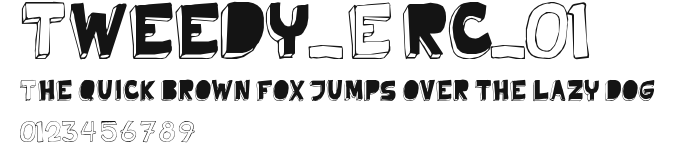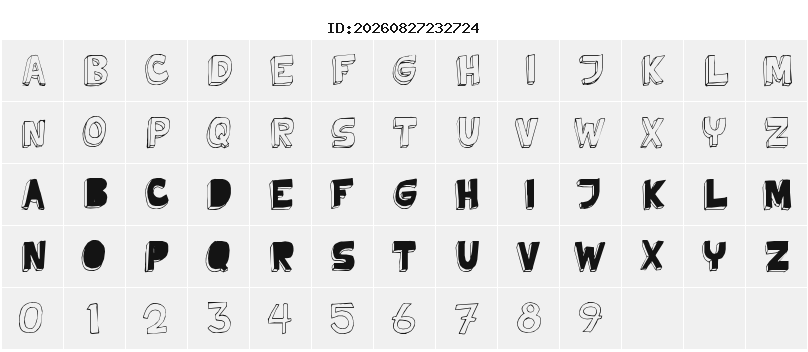
Tweedy_Erc_01 Preview
• Font Name: Tweedy_Erc_01
• Font ID: Tweedy_Erc_01:Version 1.00
• Full Font Name: Tweedy_Erc_01
• Version: Version 1.00 October 21, 2005, initial release
• PostScript Name: Tweedy_Erc_01
• Character Count: 655
About Tweedy_Erc_01.ttf
Tweedy_Erc_01.ttf is a modern, elegant sans-serif font designed for ultimate readability and visual harmony. Perfect for branding, headlines, web design, and print materials.